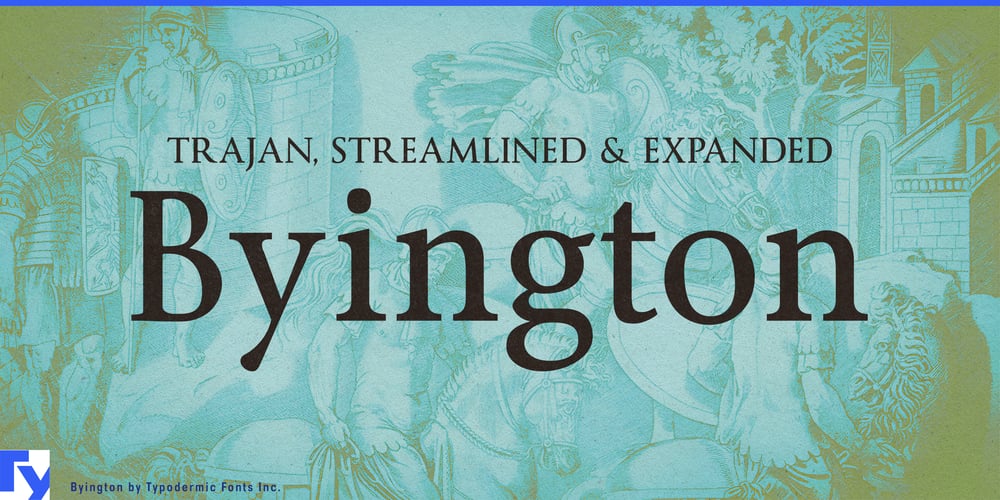
Byington Font Family was designed by Ray Larabie and published by Typodermic. Byington contains 3 styles and family package options. Byington stands as a typographic bridge between ancient Rome and the modern world, offering a bold reinterpretation of classical letterforms for contemporary designers. This font family draws its inspiration from the majestic inscriptions adorning Trajan’s Column, yet it doesn’t merely replicate—it reinvents.The uppercase characters of Byington pay homage to their imperial Roman ancestors, but with a crucial twist. Gone are the delicate nuances of stone-carved letters, replaced by robust serifs and sharp transitional curves that command attention in today’s high-definition landscapes. These capitals stand proud and resolute, ready to make their mark in video productions, digital interfaces, and anywhere else that demands typographic gravitas. What sets Byington apart is its innovative approach to lowercase letters—a feature absent from the original Trajan inscriptions. Here, the typeface draws inspiration from the refined forms of Sabon and Garamond, creating a lowercase set that complements the authoritative uppercase without being overshadowed. This seamless integration results in a typeface that’s as comfortable crafting elegant body text as it is proclaiming headlines.Available in Regular, Italic, and Bold, Byington offers the versatility required by modern designers. Each style maintains the typeface’s core essence while providing nuanced options for hierarchy and emphasis. The result is a font family that can carry an entire brand identity, from the grandeur of logos to the subtlety of fine print. Byington’s linguistic reach is as expansive as its design ambitions. Supporting a vast array of Latin-based European writing systems, it speaks fluently in tongues from Albanian to Zulu. This extensive language support ensures that Byington can convey its timeless elegance across cultural and linguistic boundaries, making it a truly global typeface.Choose Byington when you need typography that doesn’t just nod to history but strides confidently into the future. It’s for designers who understand that true timelessness comes not from rigid adherence to tradition, but from respectful evolution. With Byington, every project becomes an opportunity to carve new stories in the enduring stone of typographic excellence.